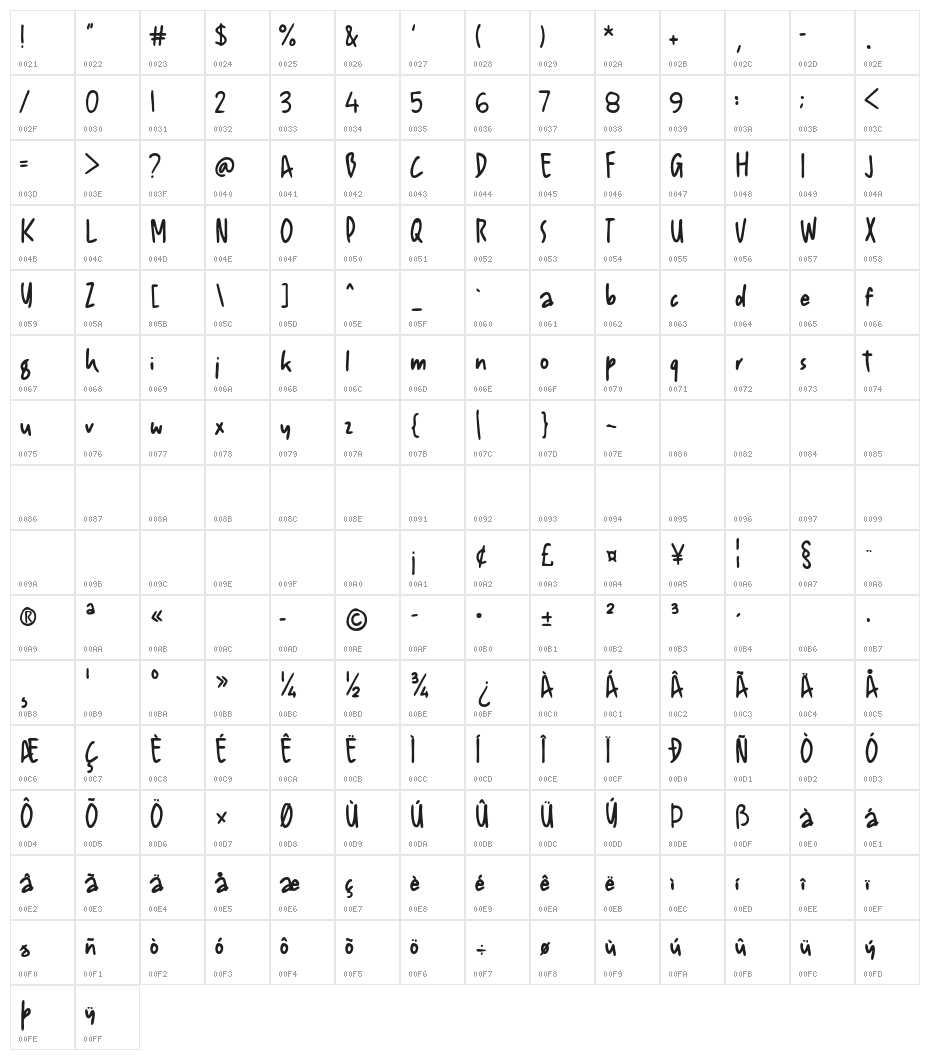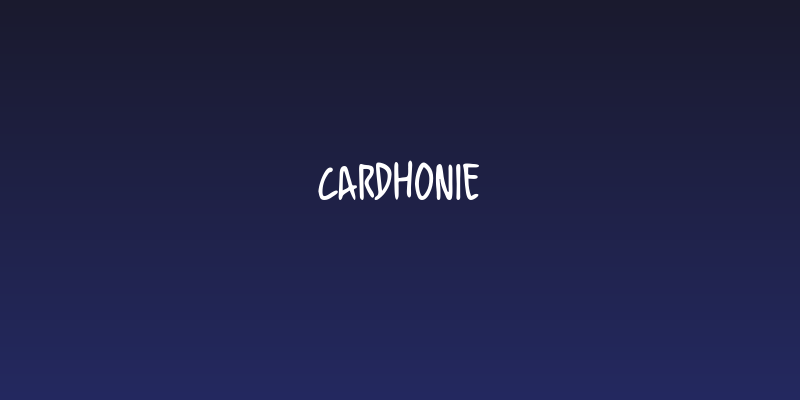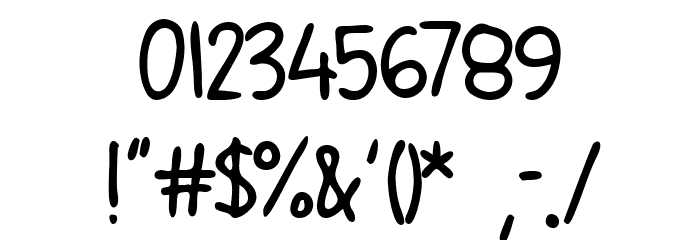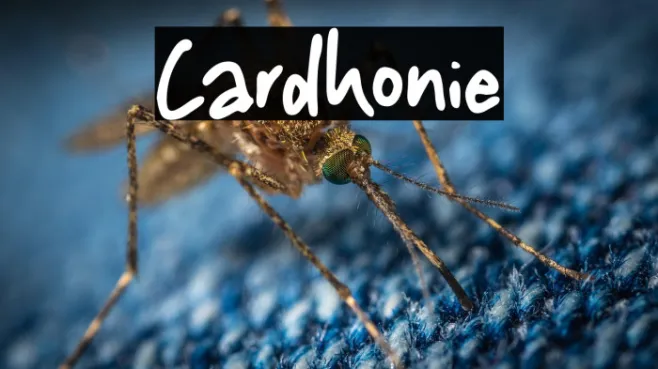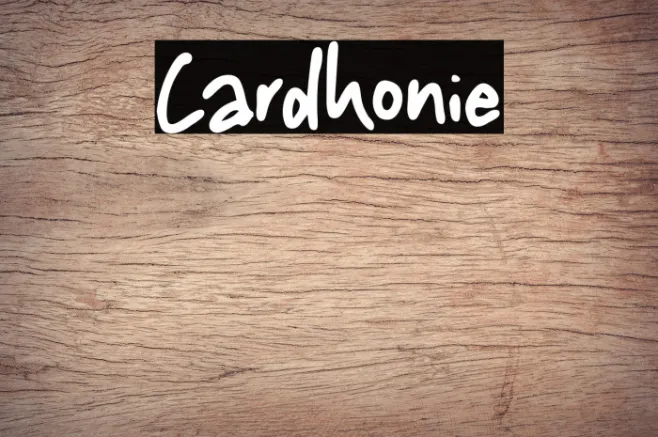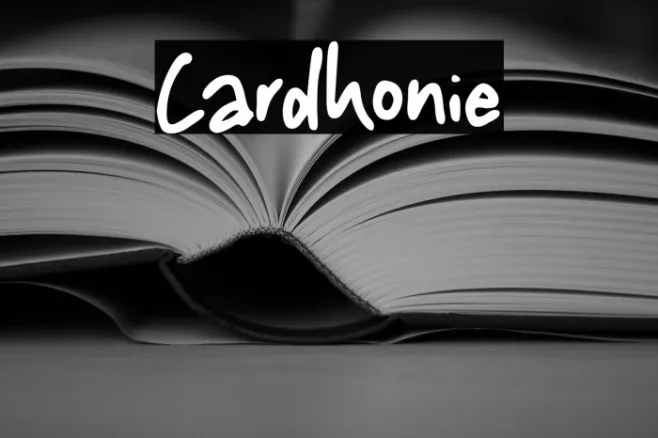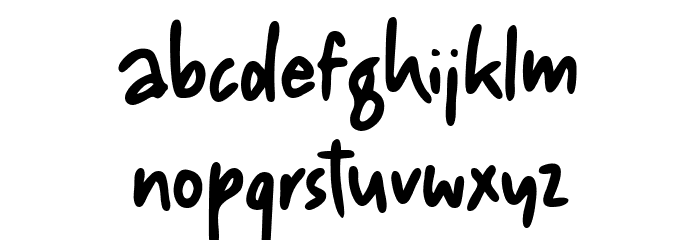
Cardhonie Font
Cardhonie Description
This font features a playful and casual handwritten style, characterized by its smooth, flowing lines and slightly irregular shapes. The letters have a consistent stroke width, giving it a uniform appearance while maintaining a lively and informal feel. The uppercase letters are bold and slightly elongated, while the lowercase letters are more rounded and compact. Numbers and special characters follow the same playful aesthetic, making the font versatile for various creative projects. Its overall appearance is friendly and approachable, suitable for designs that aim to convey warmth and personality.
| Proposed Projects | Ideal for greeting cards, invitations, children's books, and playful branding projects. |